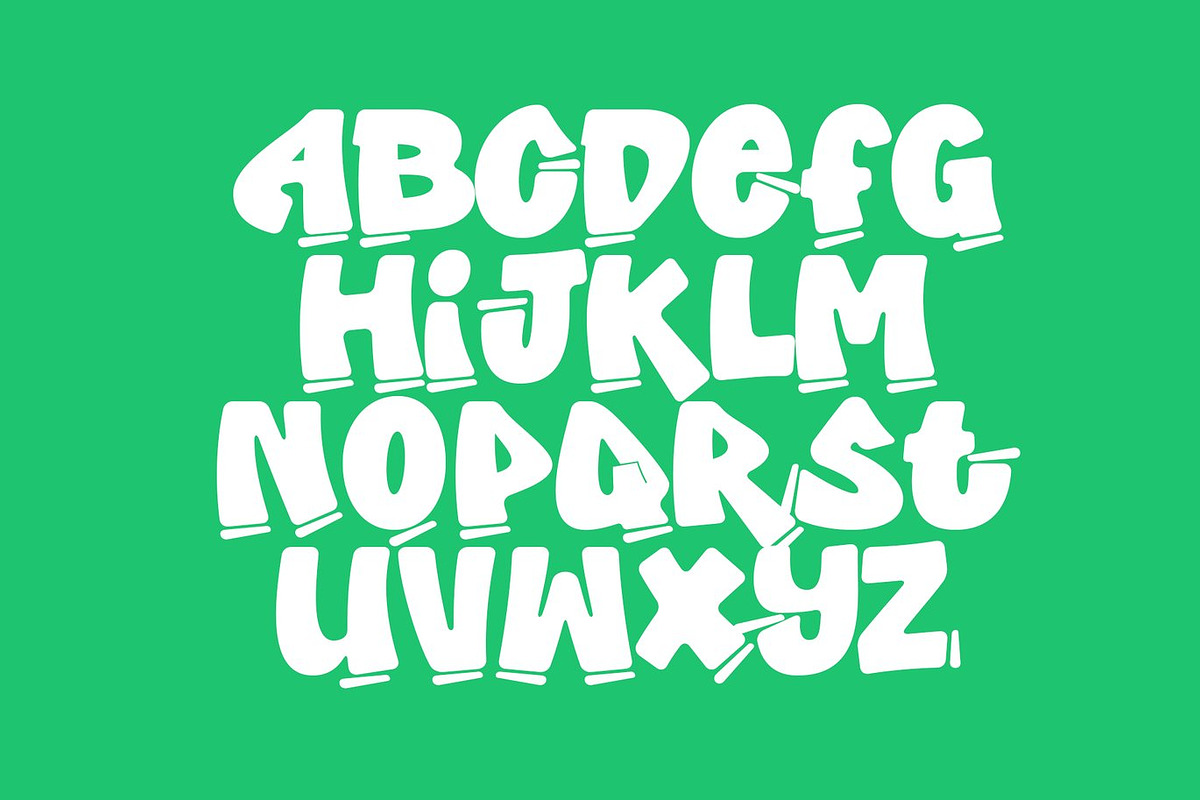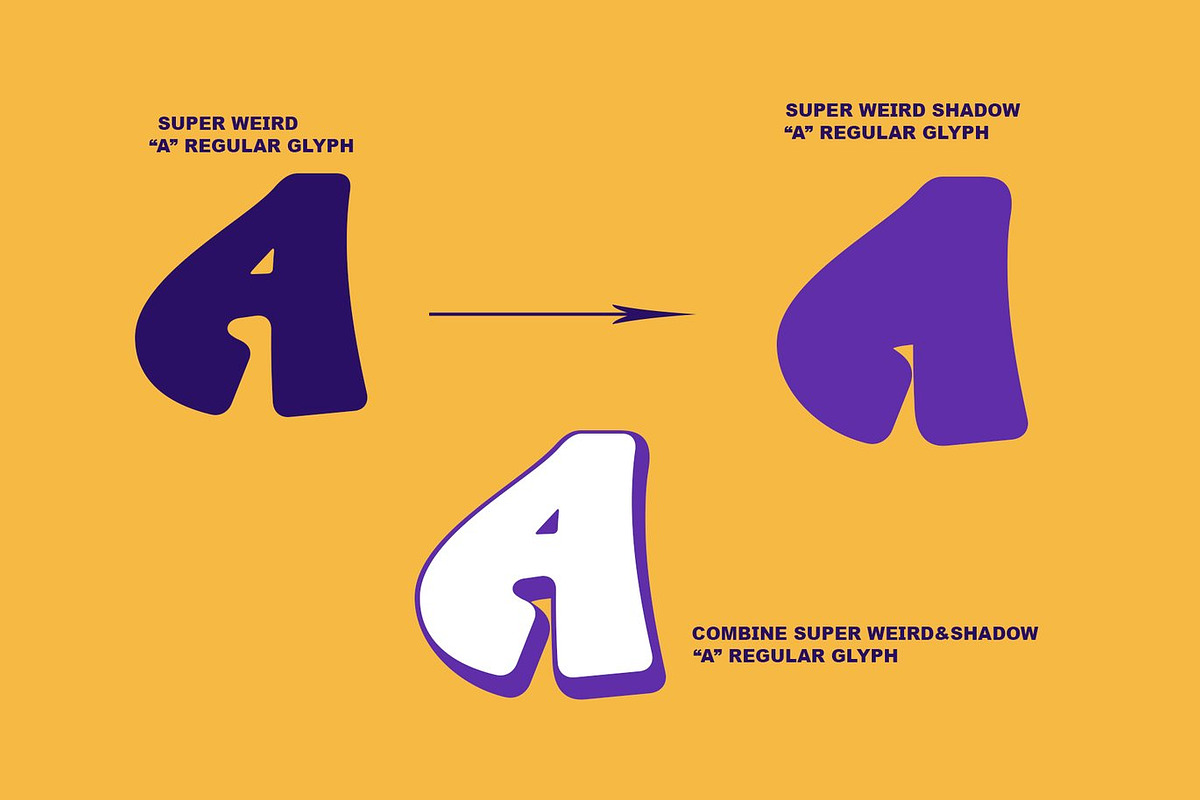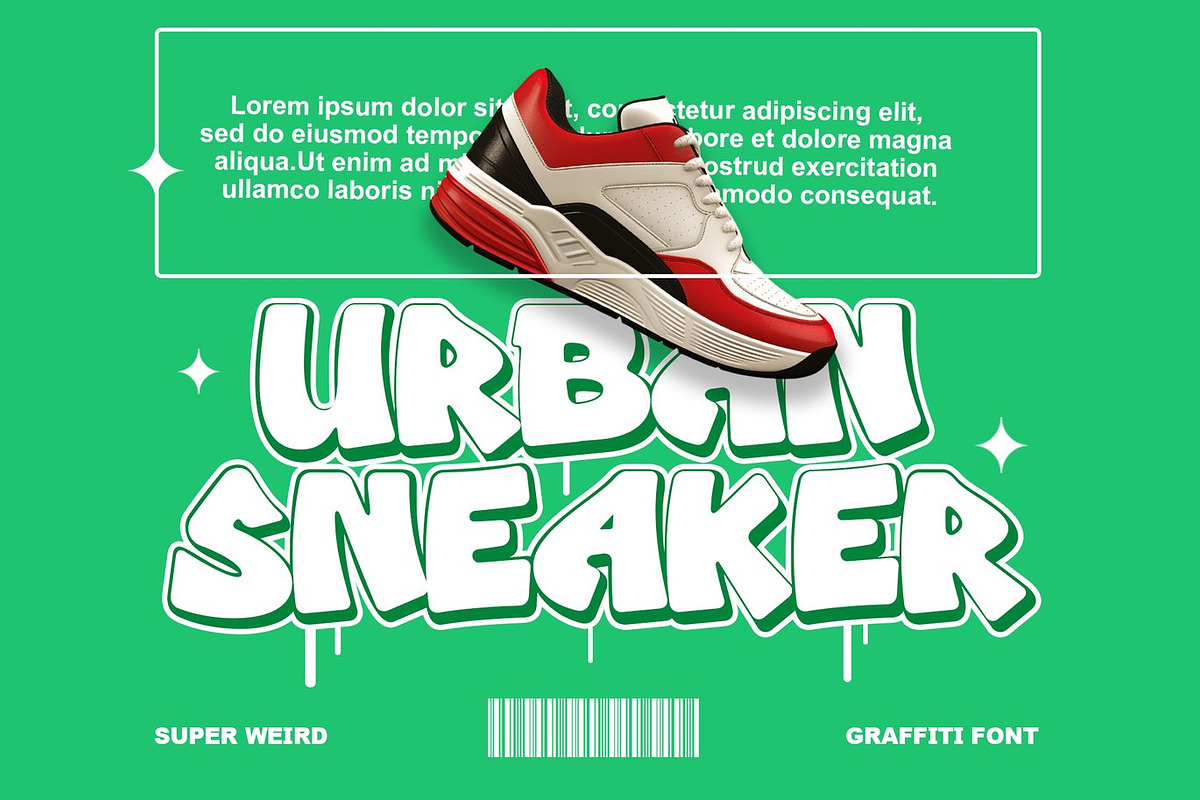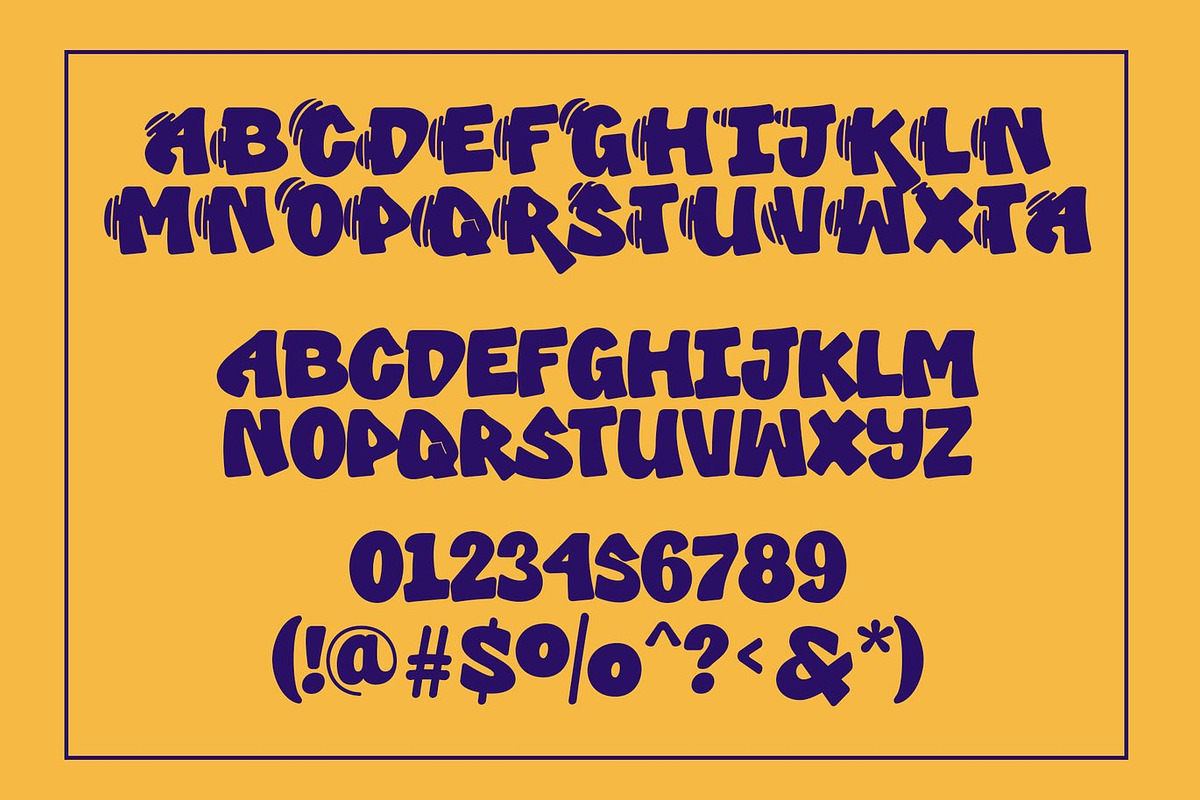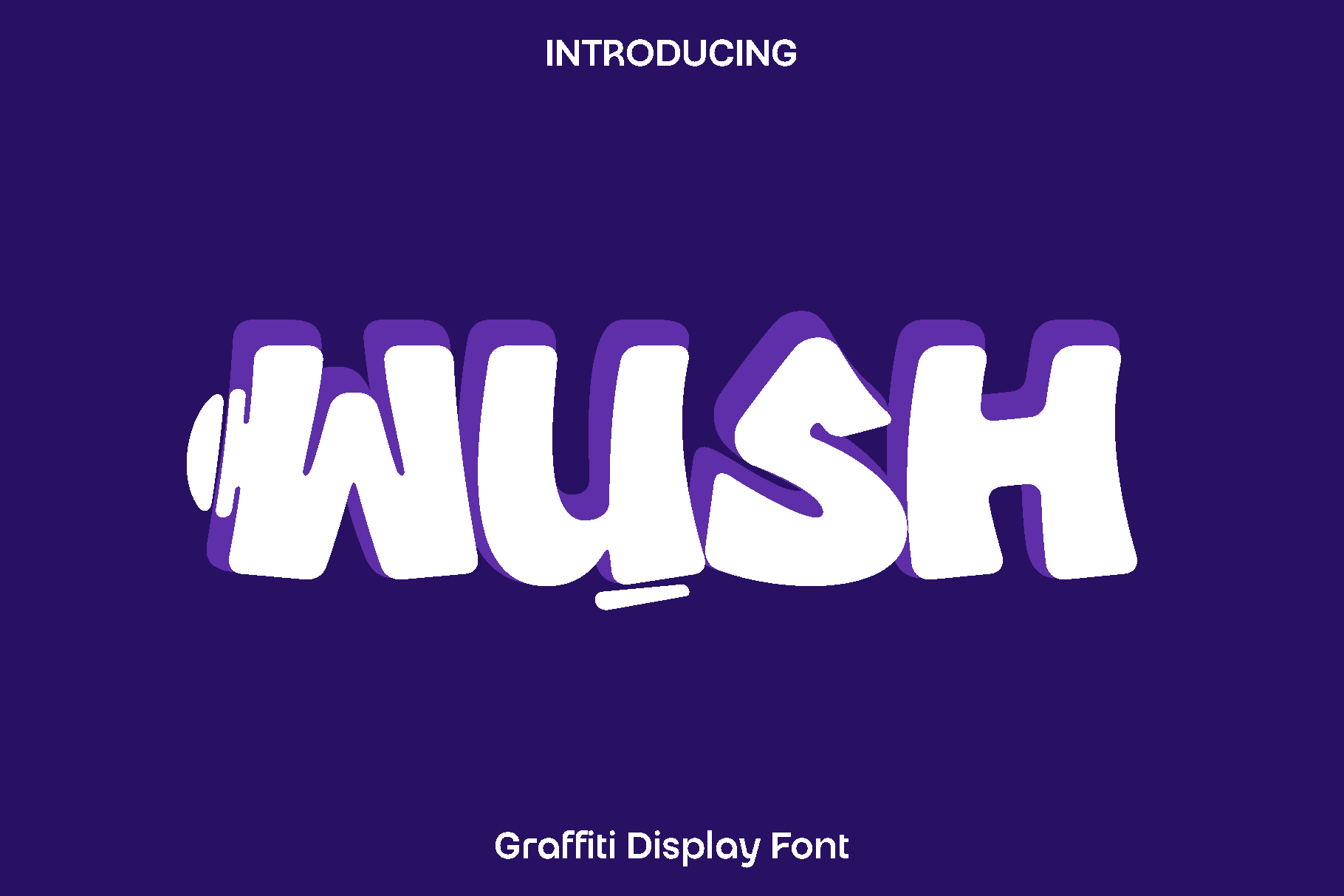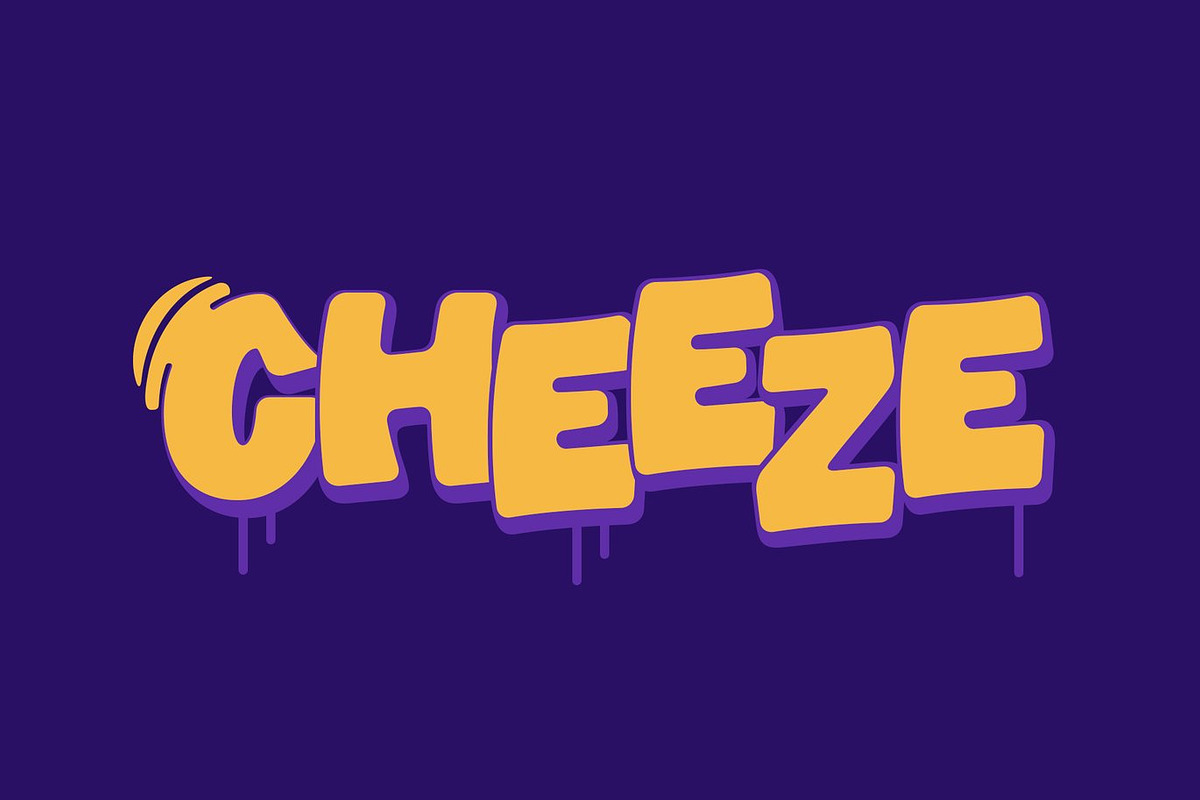
Wush - Graffiti Display Font
Wush is a bold and expressive display font designed to bring personality and creative energy into your projects. Crafted with a playful yet confident character, Wush blends strong letterforms with stylish details that make every word feel dynamic and eye catching. Its distinctive presence gives designers the freedom to create visuals that feel modern, engaging, and full of life.
Inspired by contemporary branding and editorial trends, Wush is perfect for books, magazines, logos, branding projects, photography overlays, quotes, blog headers, posters, and advertisements. Whether you are designing for print or digital media, Wush adds a striking typographic voice that captures attention instantly. The included shadow style expands your creative possibilities, allowing you to create depth, layered effects, and standout headlines with ease.
Wush is versatile enough to work in bold titles while remaining clear and readable in supporting text. Its balanced structure and stylish details make it suitable for both professional branding and artistic compositions. Designers looking to create memorable and impactful visuals will find Wush a valuable addition to their type collection.
Wush Font Features:
• Two styles included: Regular and Shadows
• Uppercase and lowercase characters
• Numerals and functional punctuation
• Stylistic features
• Multilingual support